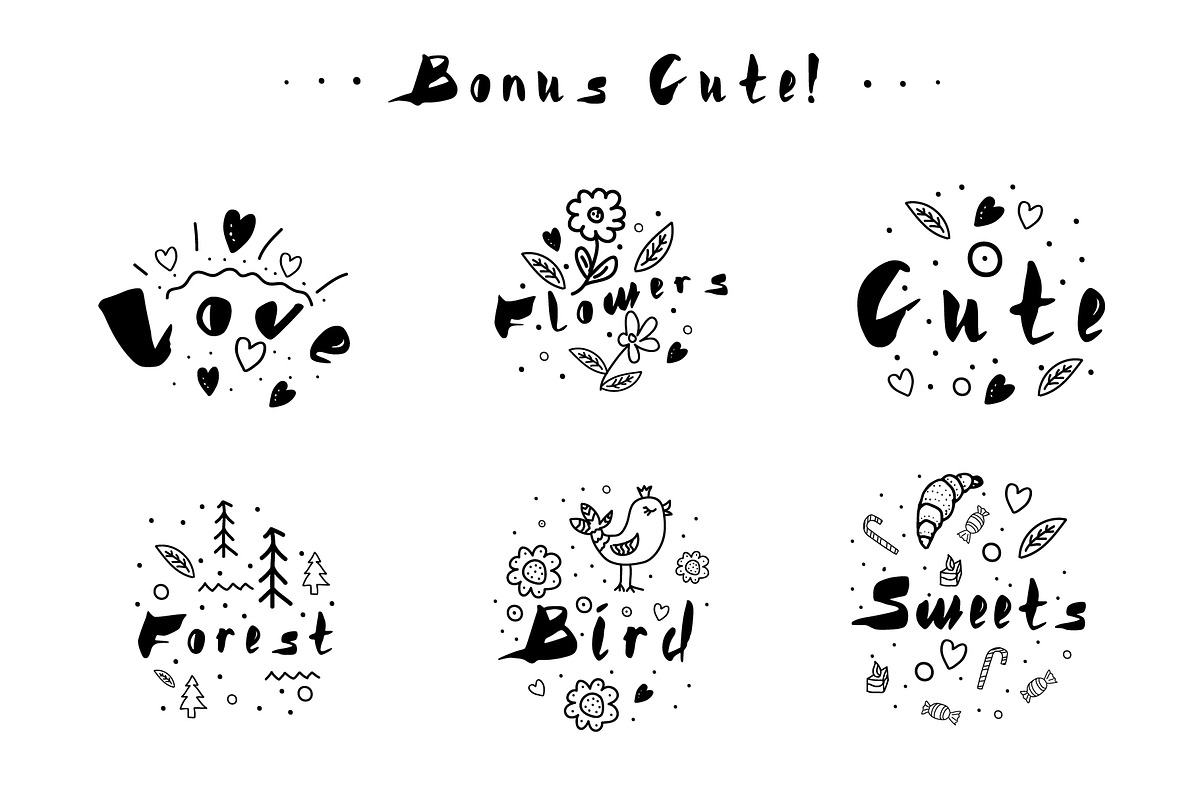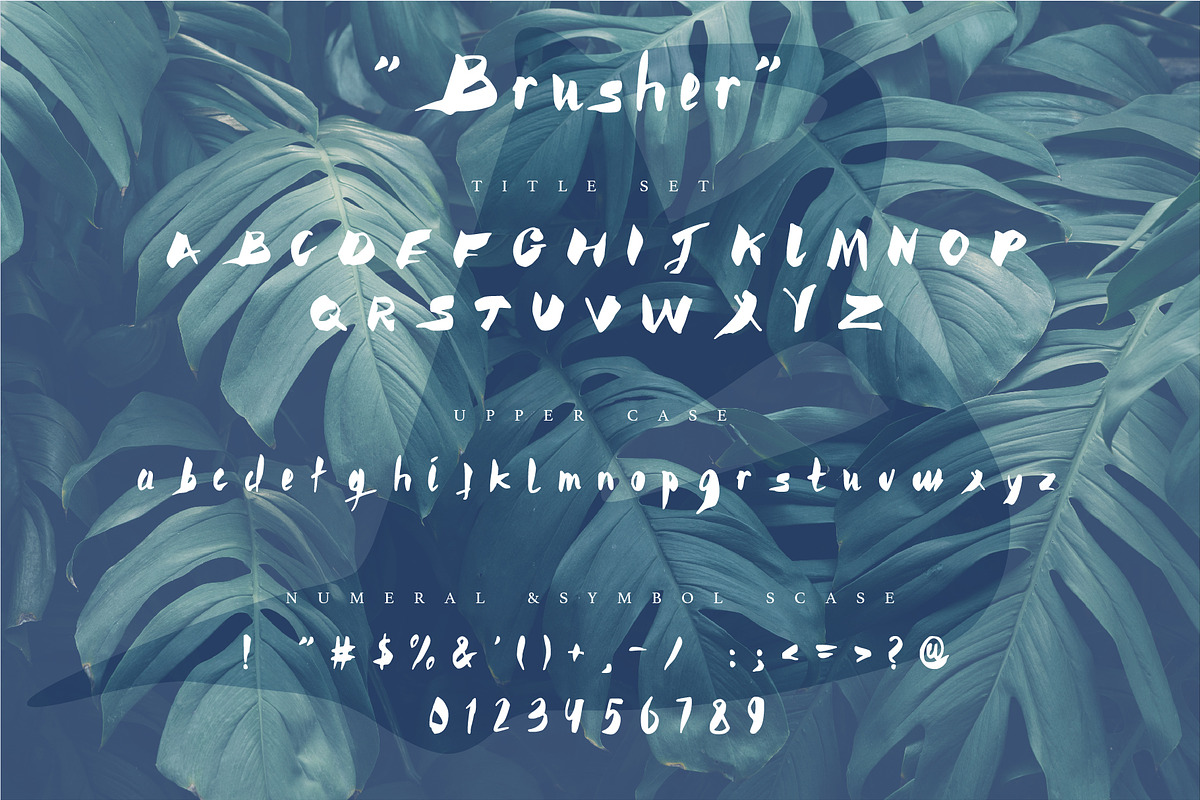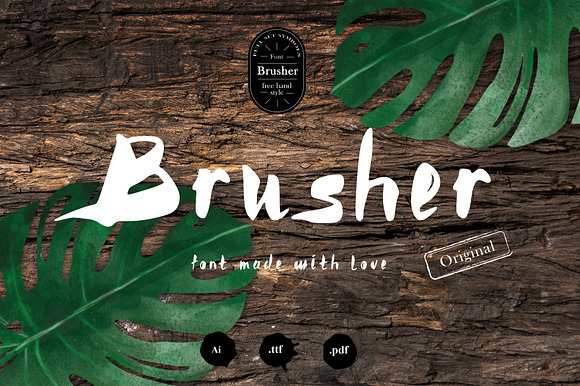
Brusher font
Friends, I present to you my new work and font. This is a handwritten font made with a pen on paper and further tracing and processing the font on a computer
This incredibly beautiful font can be used in your designs.
The name of the font tells us its origin and says that it is a brush-"Brusher"
- Brusher Regular
Brusher font by Vladimir Vihrev fits naturally into Branding, posters, packaging, typography.